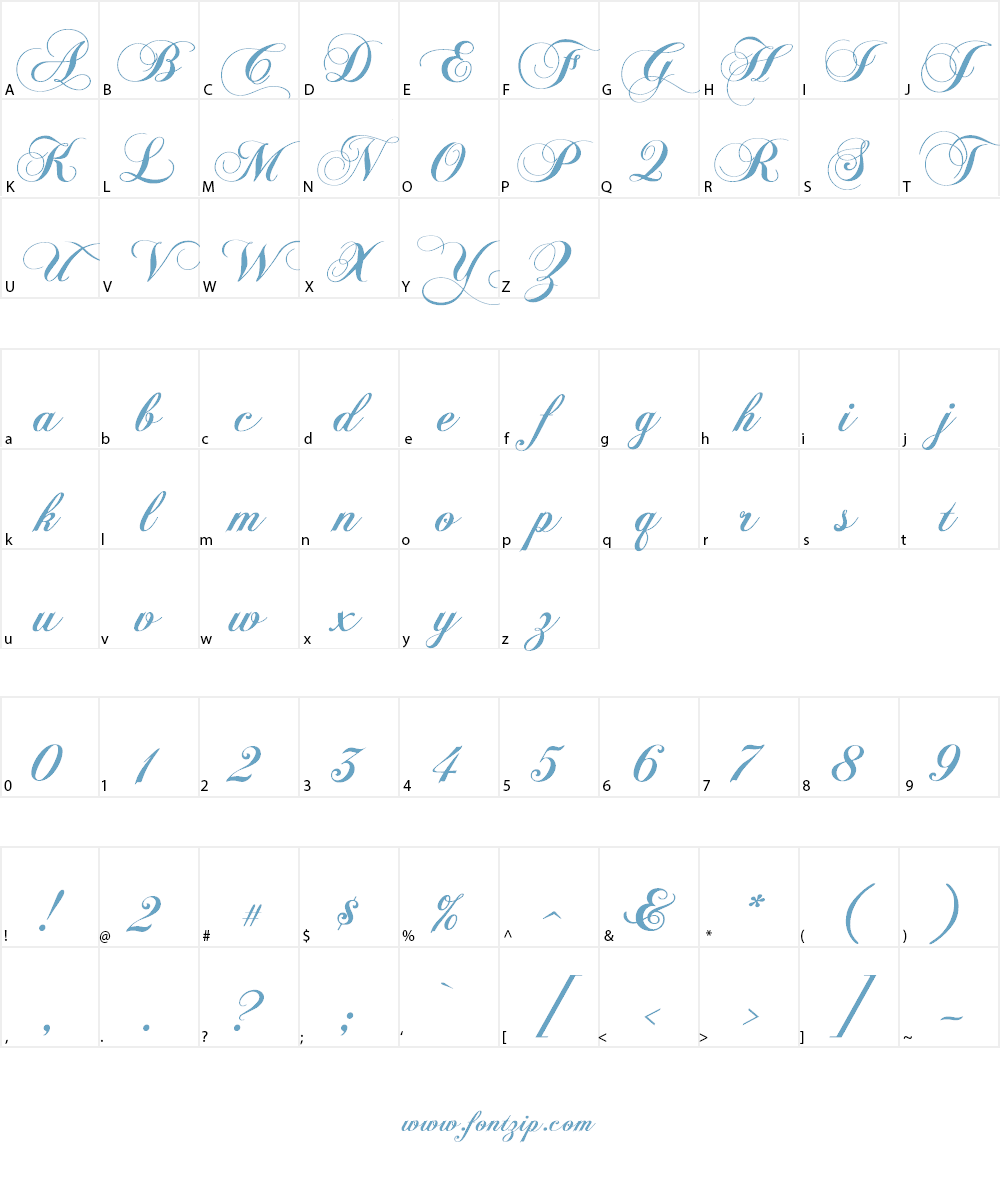
ChopinScript is based on Polonaise by Phil Martin (1923-2005). Chopin Script is on page 20 Script and Cursive Alphabets: 100 Complete Fonts by Dan X. Solo and also on page 97 of The Solotype Catalog of 4,147 Display Typefaces.
This was originally released as a True Type font in 1999 by Claude who signed the font then as Diogene. The new OpenType font had been expanded with ornaments and accented characters. The True Type font released in 1999 is included in the download.